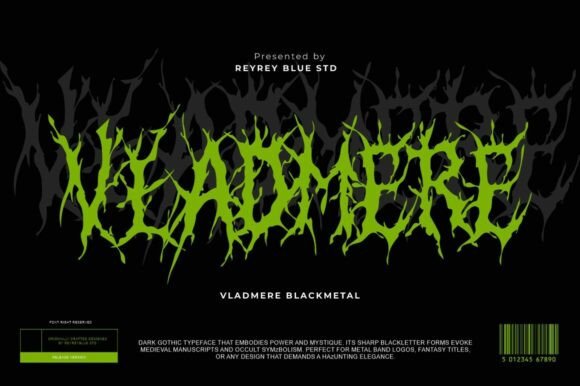
Vladmere: A Font of Shadow and Power
Fonts play a powerful role in shaping the visual identity of any project. Whether you're designing an album cover, branding a horror movie, or creating a logo for a black metal band, choosing the right typeface can elevate your work from ordinary to extraordinary. Enter Vladmere Blackmetal, a font that embodies raw darkness, chaotic energy, and ancient symbolism. It’s more than just text — it's an experience.
What Makes Vladmere Unique?
Vladmere is not your average typeface. Inspired by the world of black metal music, medieval blackletter styles, and occult imagery, this font captures the essence of darkness and rebellion. Each letter is crafted with jagged, root-like forms that feel twisted and organic, almost as if they were growing out of the page rather than being printed on it.
The design features thorns, spikes, and intricate detailing that give it a menacing presence. This makes it especially effective at large sizes where its bold anatomy can truly shine. Vladmere isn't just about looking cool — it’s about conveying intensity and emotion through typography.
Aesthetic Origins and Influences
The roots of Vladmere lie deep in gothic and extreme subcultures. Its creators drew inspiration from the logos of influential black metal bands, blending those with the ornate, angular shapes of traditional blackletter fonts. The result is something both familiar and fresh — a modern twist on old-world darkness.
Occult symbols also find their way into Vladmere's character set, adding layers of mystery and depth. These subtle details make the font ideal for anyone working within dark fantasy, horror, or alternative art spaces.
Where Can You Use Vladmere?
Vladmere Blackmetal is incredibly versatile when it comes to dark-themed projects. Here are some common use cases:
Its strength lies in its ability to evoke strong emotions. Because of this, it's often used in branding for niche markets that thrive on edginess and exclusivity.
Beginner-Friendly Applications
If you're new to using custom fonts, Vladmere might seem overwhelming at first due to its complexity. But don’t worry — it works best when used sparingly. Try applying it to headlines or titles rather than body text. For example:
1. Create a bold band name on a simple black background.
2. Use it for a dramatic tagline in a promotional poster.
3. Pair it with more readable fonts for balance in layouts.
This approach helps maintain legibility while still harnessing Vladmere's visual power.
Why Choose Vladmere Over Other Fonts?
Many designers reach for standard horror or gothic fonts without considering how well they align with their project’s tone. Vladmere, however, was built with intention. Its tangled, living letterforms aren’t just stylistic choices — they reflect the chaos and mysticism often found in the themes it supports.
Compared to other gothic or blackletter fonts, Vladmere adds an extra layer of aggression and unpredictability. It doesn’t shy away from sharp angles or asymmetrical shapes, making it stand out in crowded design spaces. For professionals and hobbyists alike, this means fewer revisions and a stronger visual impact right from the start.
Designing with Vladmere: Tips and Tricks
To get the most out of Vladmere, consider these practical tips:
These techniques help ensure that Vladmere remains the focal point of your design, rather than becoming too busy or distracting.
Things to Consider Before Using Vladmere
While Vladmere is visually striking, it’s not always the best fit for every project. Here are a few things to keep in mind before incorporating it into your work:
1. Legibility matters: Avoid using it for long paragraphs or small print. It shines in bold, oversized applications.
2. Match the mood: Only use it when the context calls for darkness, power, or mystery. Misuse could alienate your audience.
3. Check licensing: Ensure the font is properly licensed for commercial use, especially for logos or merchandise.
4. Consider accessibility: High-contrast environments and clear hierarchy will help maintain usability for all users.
By understanding these limitations, you’ll be better equipped to use Vladmere effectively and avoid potential pitfalls.
Real-World Examples of Vladmere in Action
Let’s imagine a few real-world scenarios where Vladmere would be the perfect choice:
In each case, Vladmere adds value by enhancing the emotional core of the project. It’s not just a font — it’s a storytelling tool.
Embrace the Darkness
Whether you're a graphic designer, musician, indie filmmaker, or content creator, Vladmere Blackmetal offers a unique voice for your visuals. It’s not for everyone, but for those who want to channel the spirit of shadow, chaos, and ancient power, it’s hard to beat.